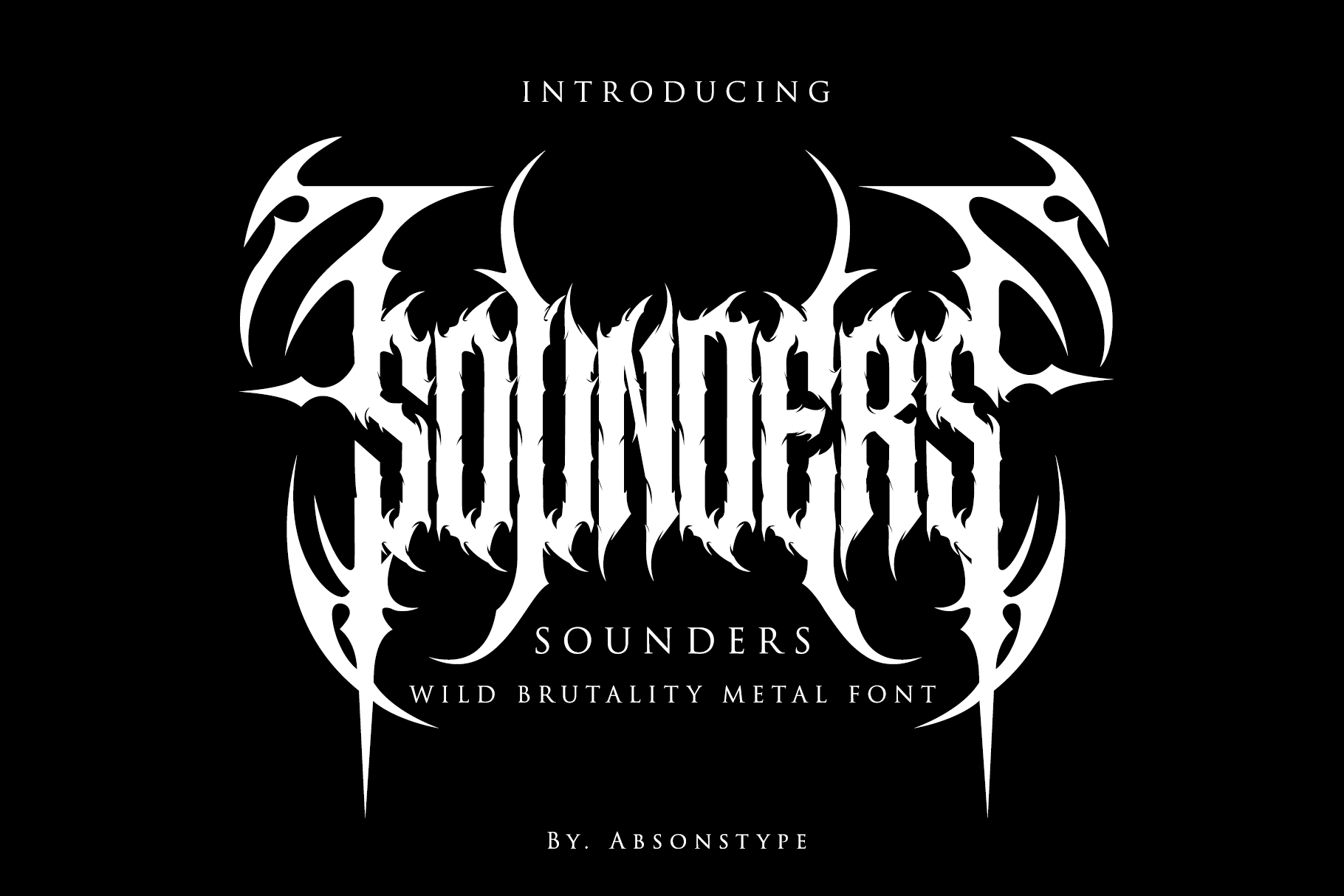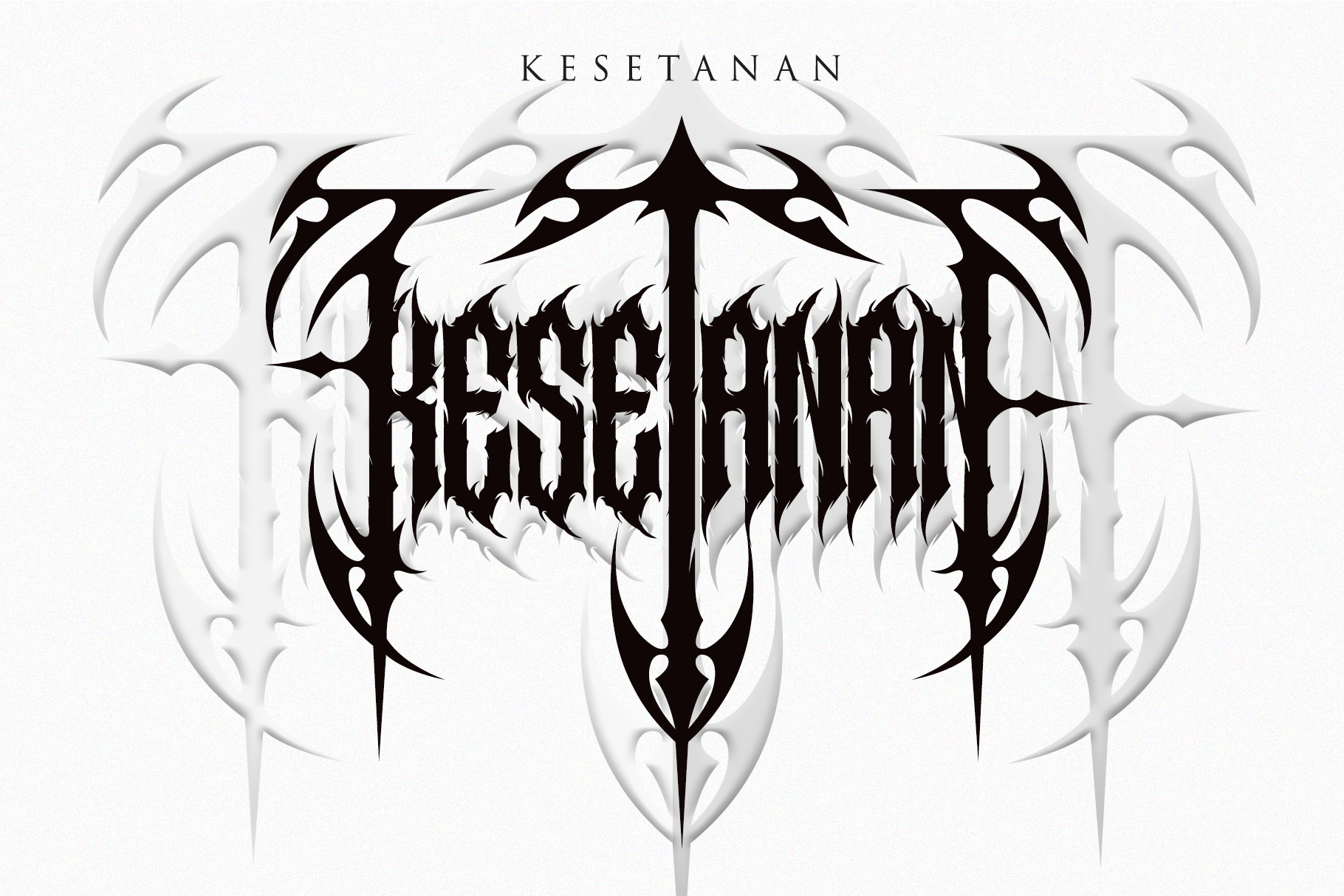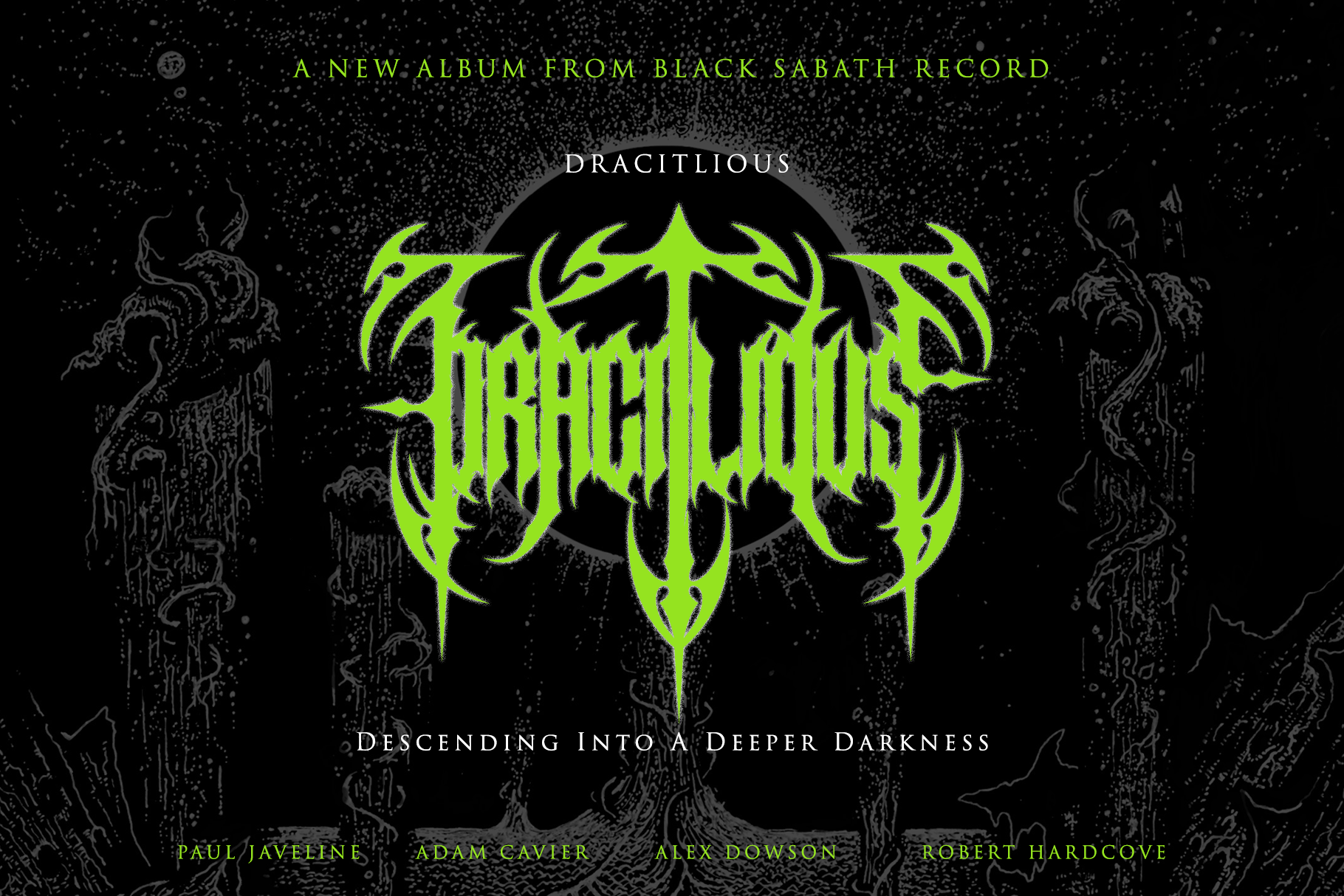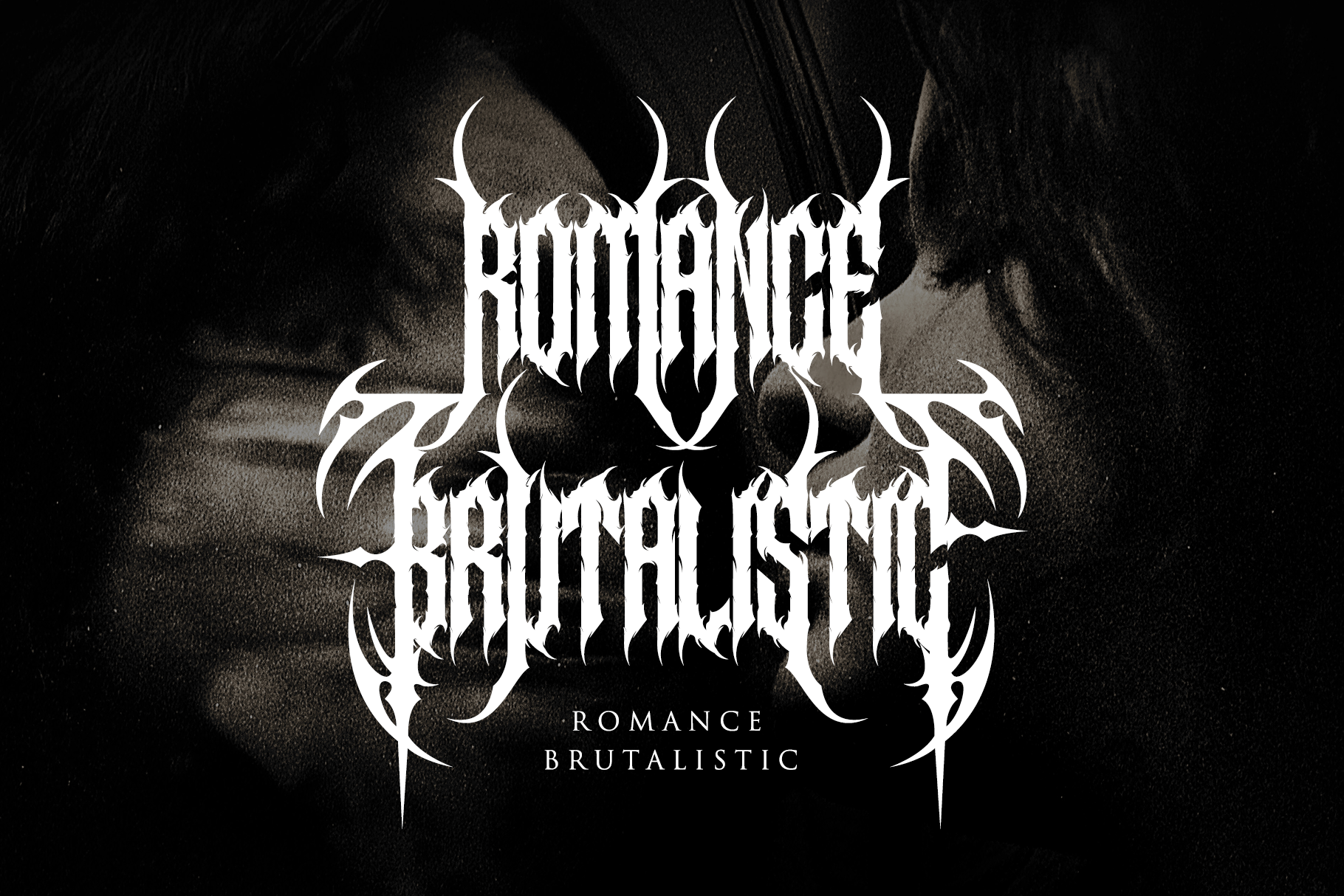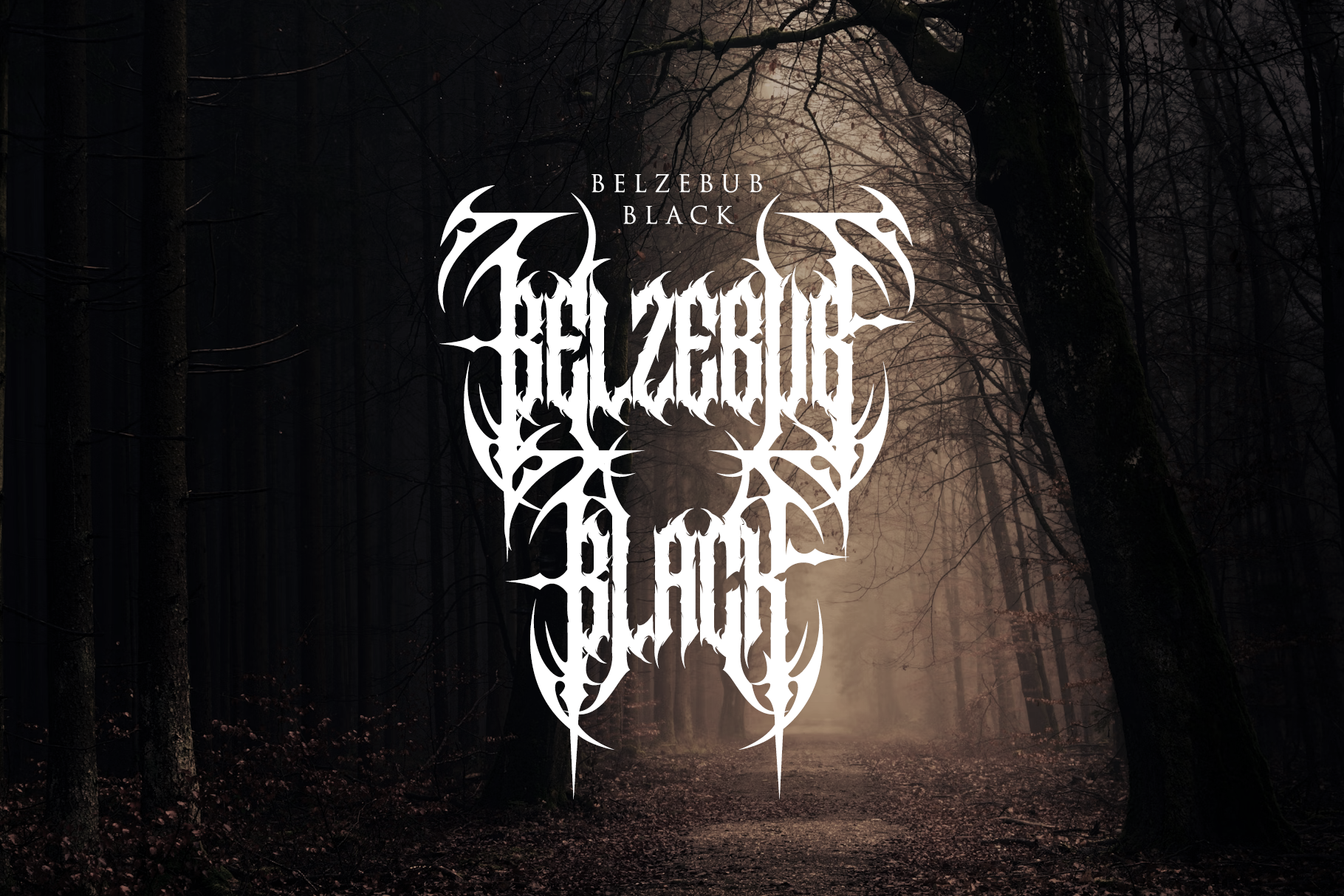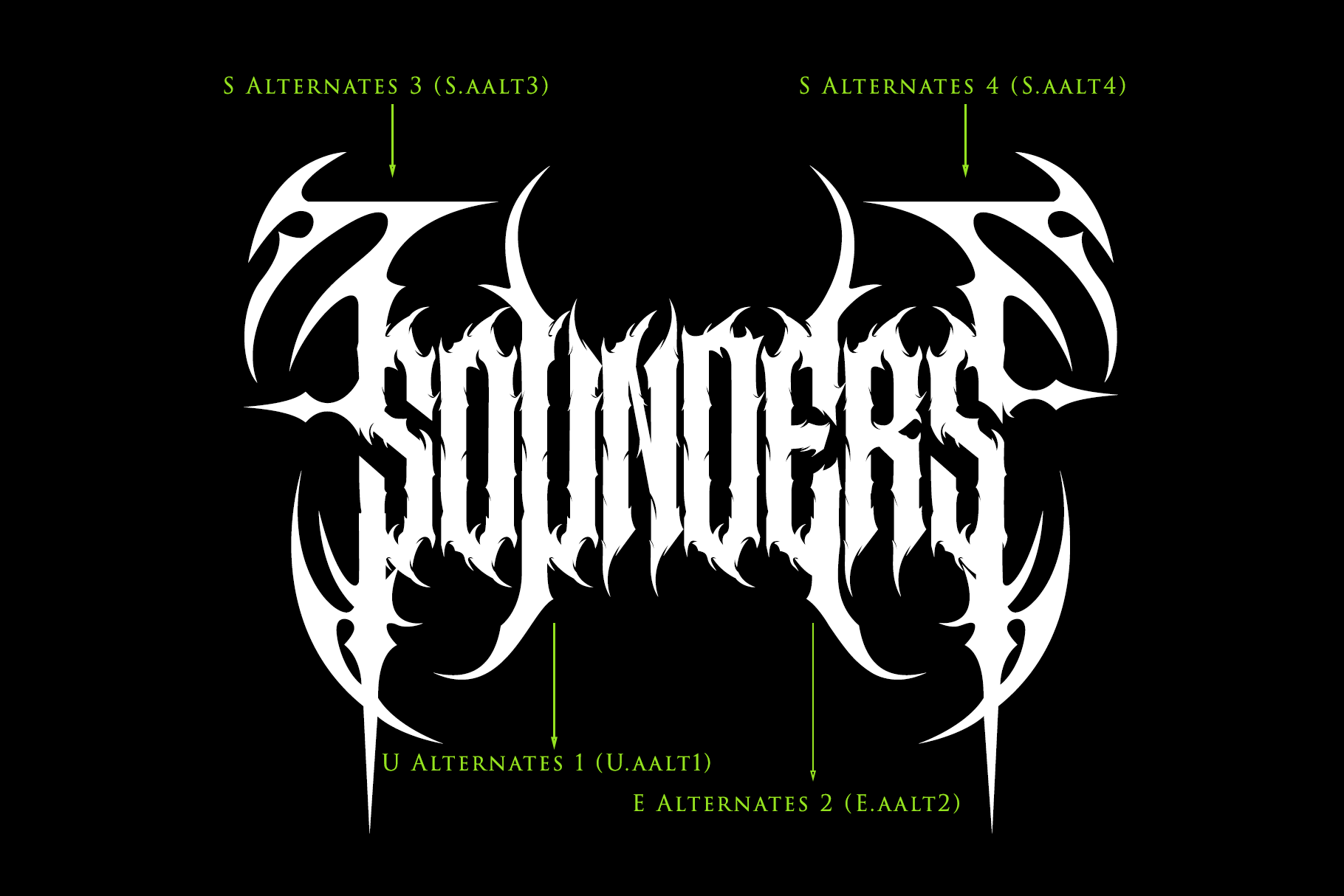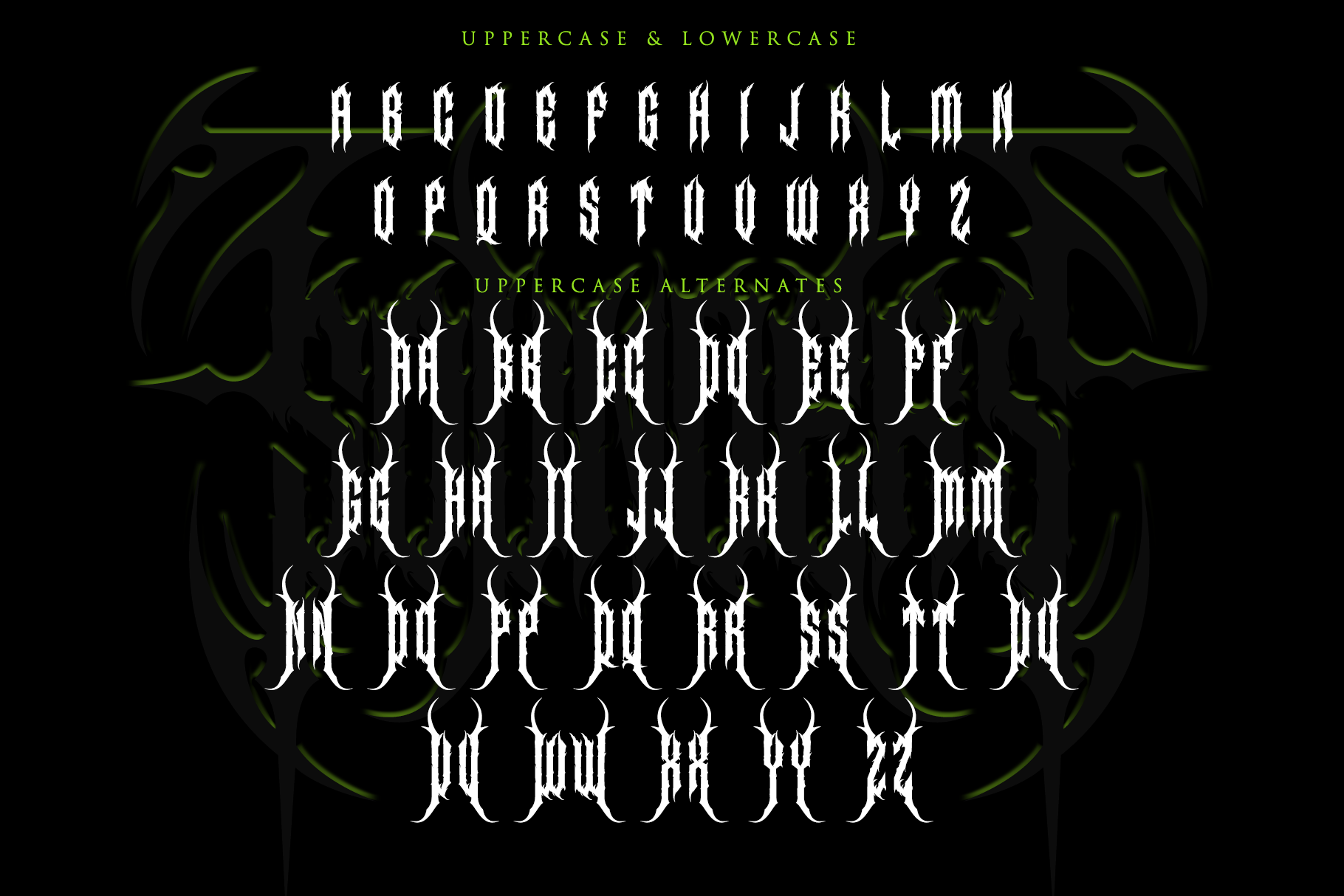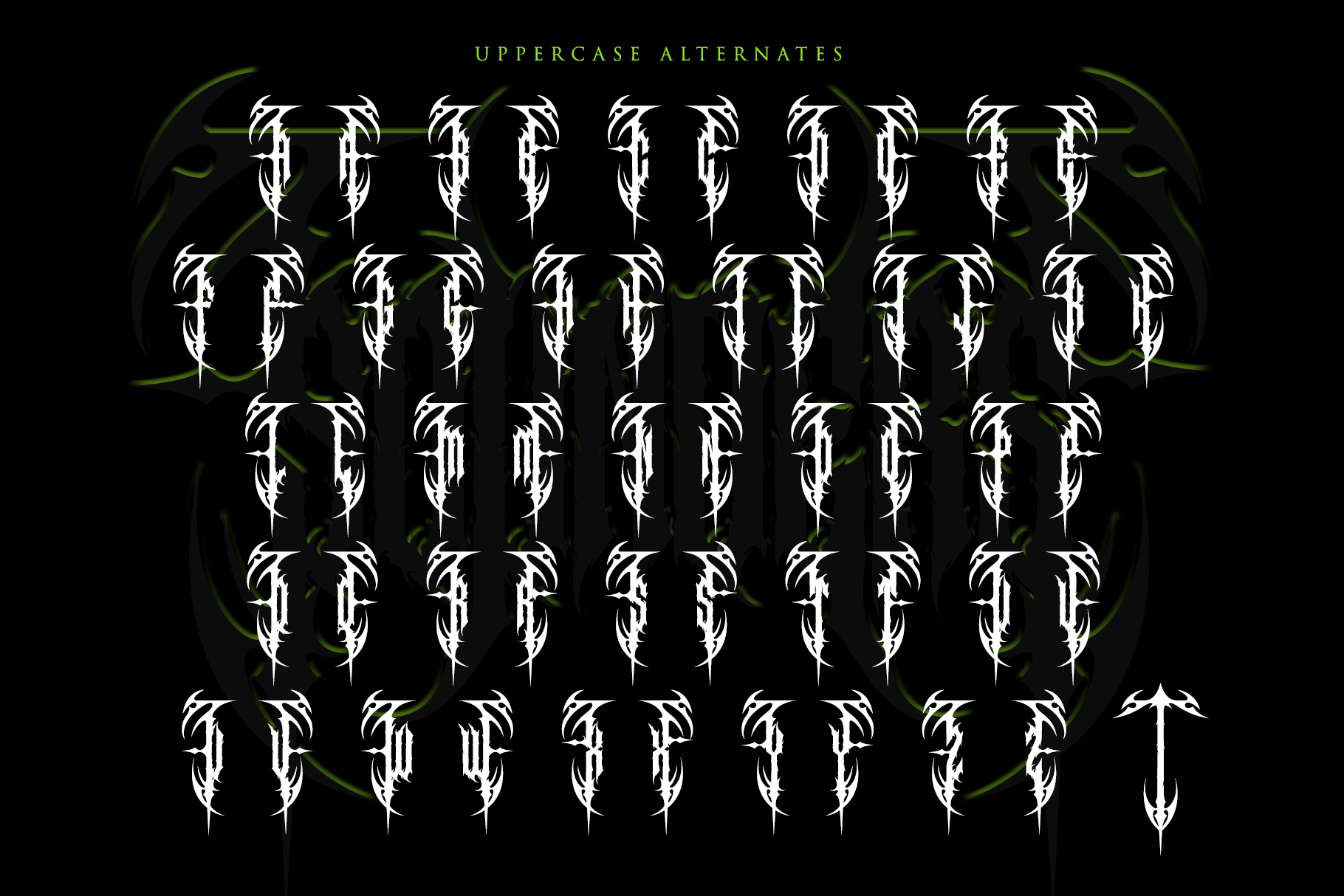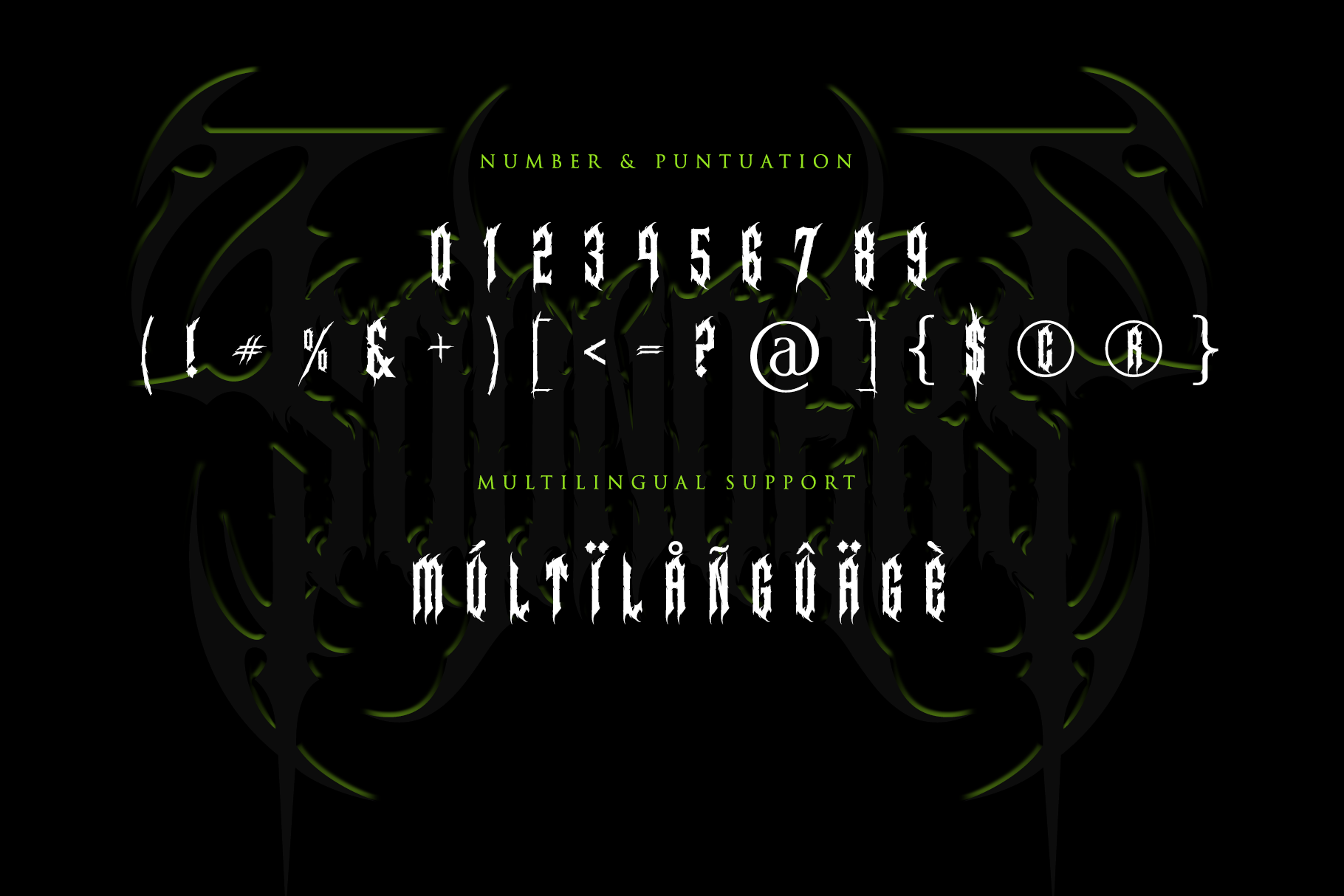
- SOUNDERS
SOUNDERS is the Black Metal – Death Metal – Trash Metal or any Metal Music display font with all caps style looks and feel nice balanced.
Created your design just with the play alternates font
Honestly it works perfectly for headlines, logos, posters, packaging, T-shirts and much more for branding and anything designs.
Font Features :
- Character set A-Z in All Caps Style
- Alternates letter in Uppercase
- Numerals & Punctuation
- Multilingual Support